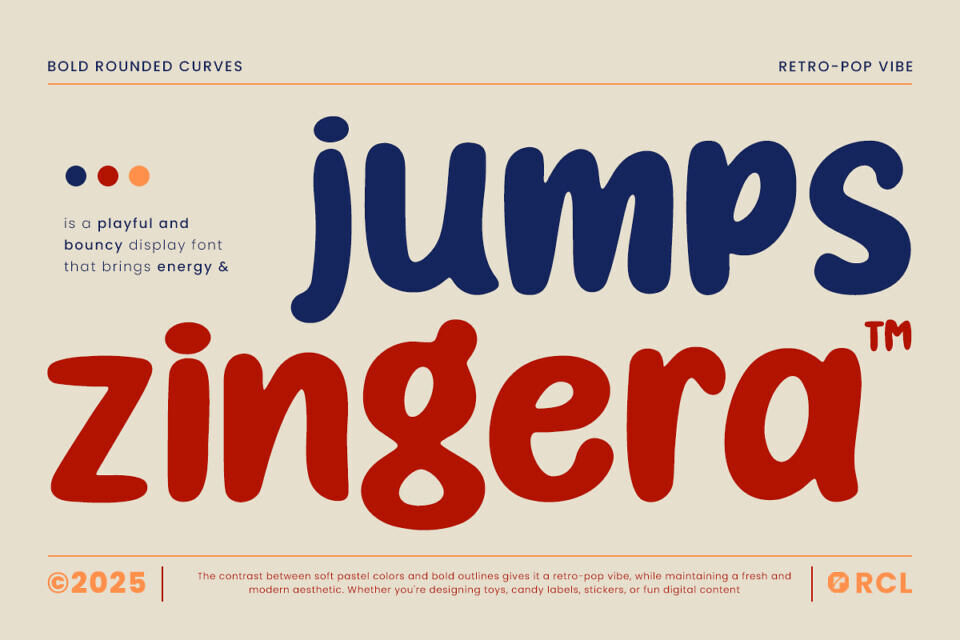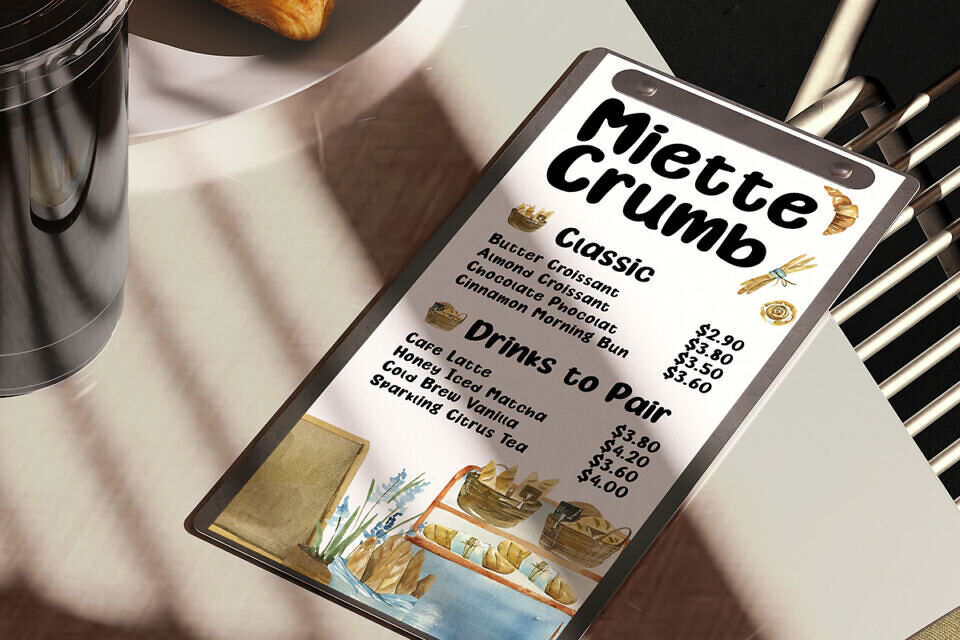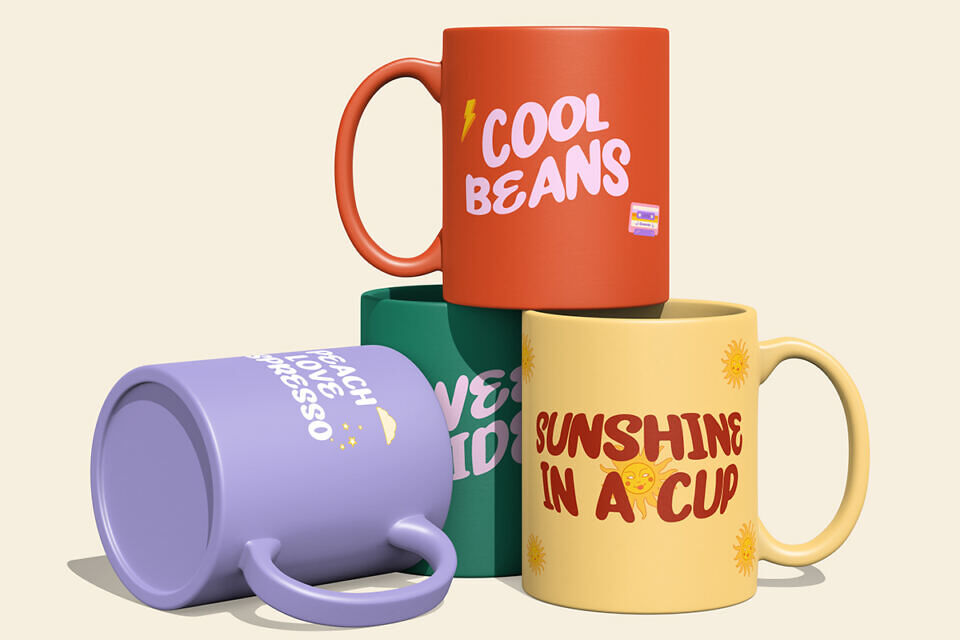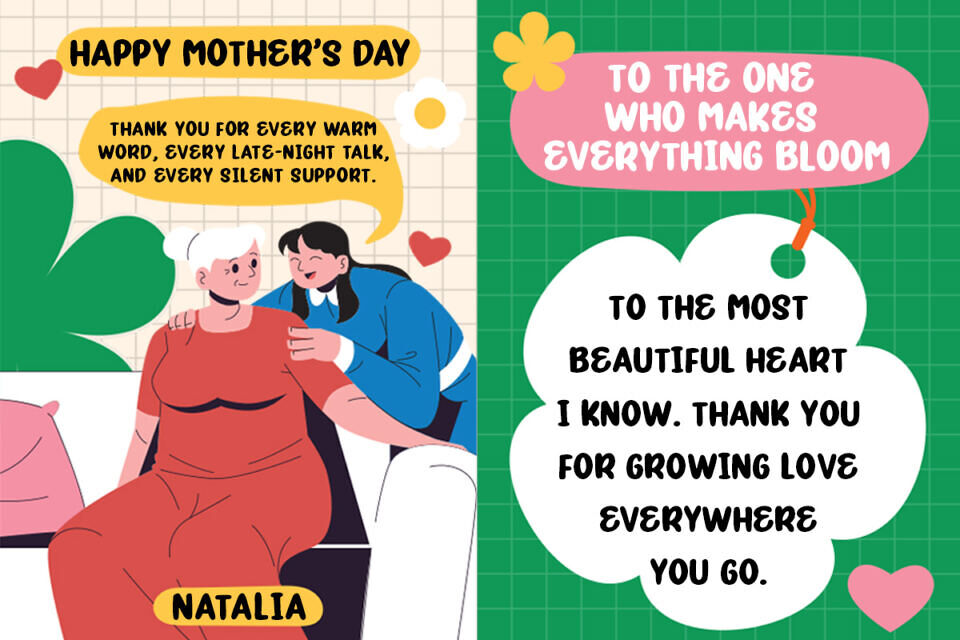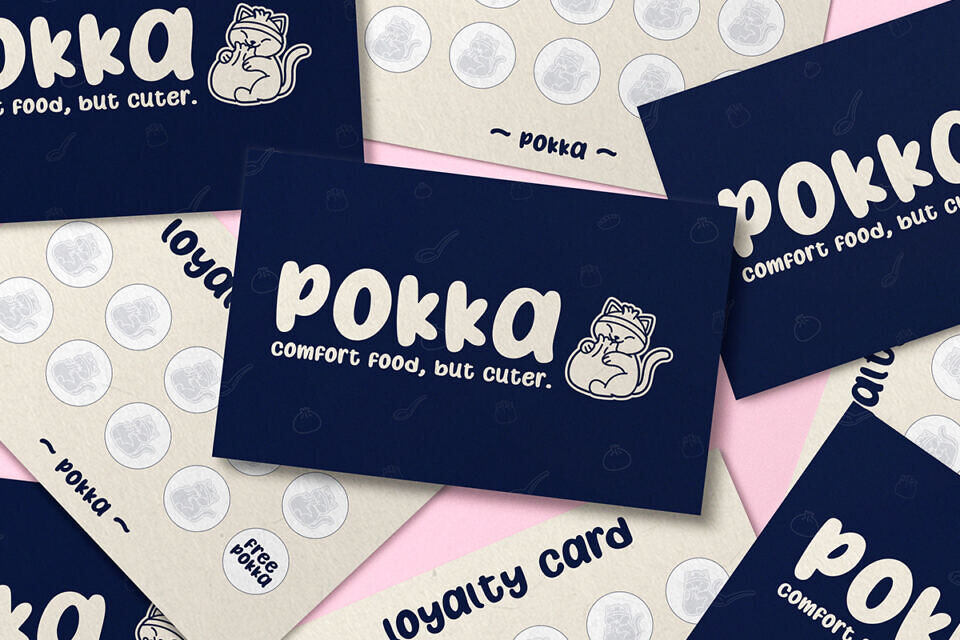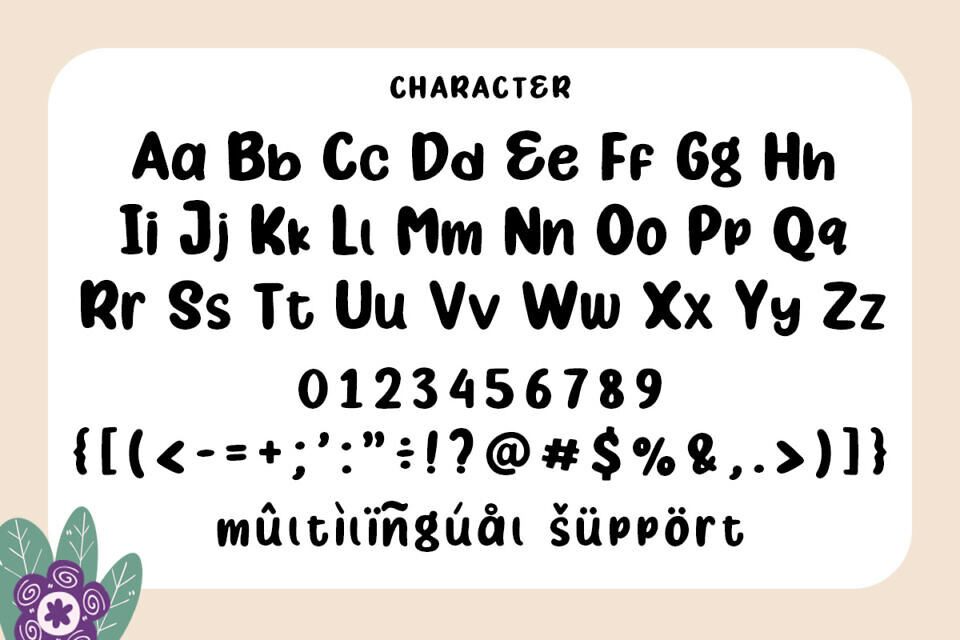
Jump Zingera is a playful and bold display font packed with personality, curves, and retro-pop vibes. Designed with smooth rounded forms and lively bounce, Jump Zingera brings instant joy and energy to any project.
It’s the perfect match for creative work that wants to feel friendly, nostalgic, and delightfully bold. Whether you’re designing labels for candy, toy packaging, children’s books, or quirky brand identities, this font delivers a modern punch with a vintage twist.